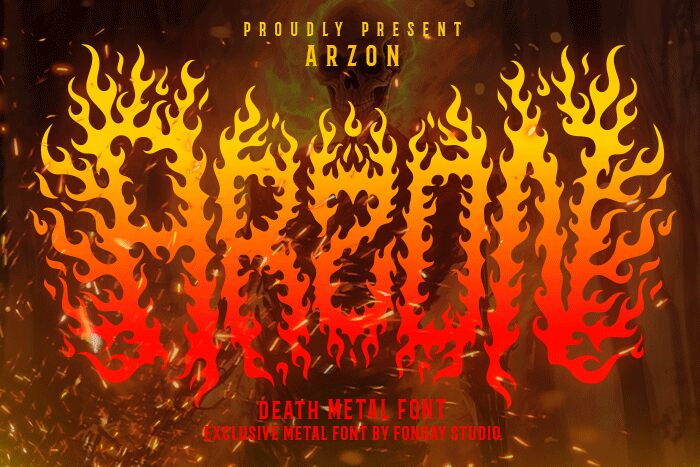
Arzon Fire captivates with its striking gothic aesthetic, intertwining elements of fear and modernity. The letters ignite with a fierce, almost animated flame-like design that immediately grabs attention, evoking a sense of intensity and drama. Each character appears to flicker with life, creating an exhilarating visual impact that perfectly suits its namesake.
This font's unique character renders it ideal for applications in horror-themed designs, contemporary art projects, or any creative endeavor aiming to evoke strong emotions. Whether used for branding or special event promotions, Arzon Fire’s fiery appeal ensures your message stands out vividly and memorably in any context.
ARZON FIRE